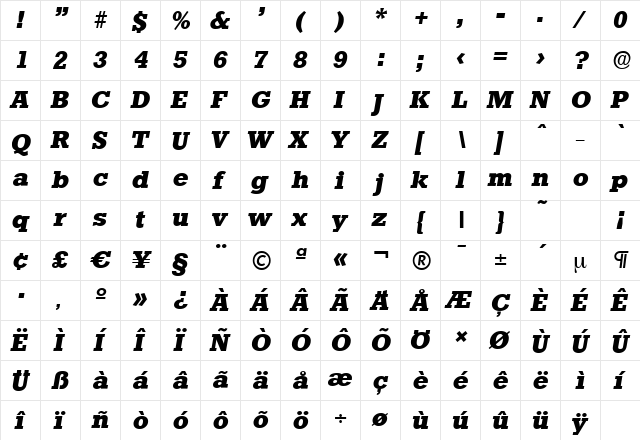
StaffordSerial-Xbold Italic
Design Context for StaffordSerial-Xbold Typeface
StaffordSerial-Xbold is a composed and adaptable typeface that performs quietly and consistently across a wide range of design contexts. The dynamic lean of this cut emphasises speed and emphasis in any layout. The heavy weight commands attention and anchors typographic hierarchies.
Pro Tip: Use StaffordSerial-Xbold for emphasis, pull quotes, and subheadings where its slanted energy can add rhythm to the layout.